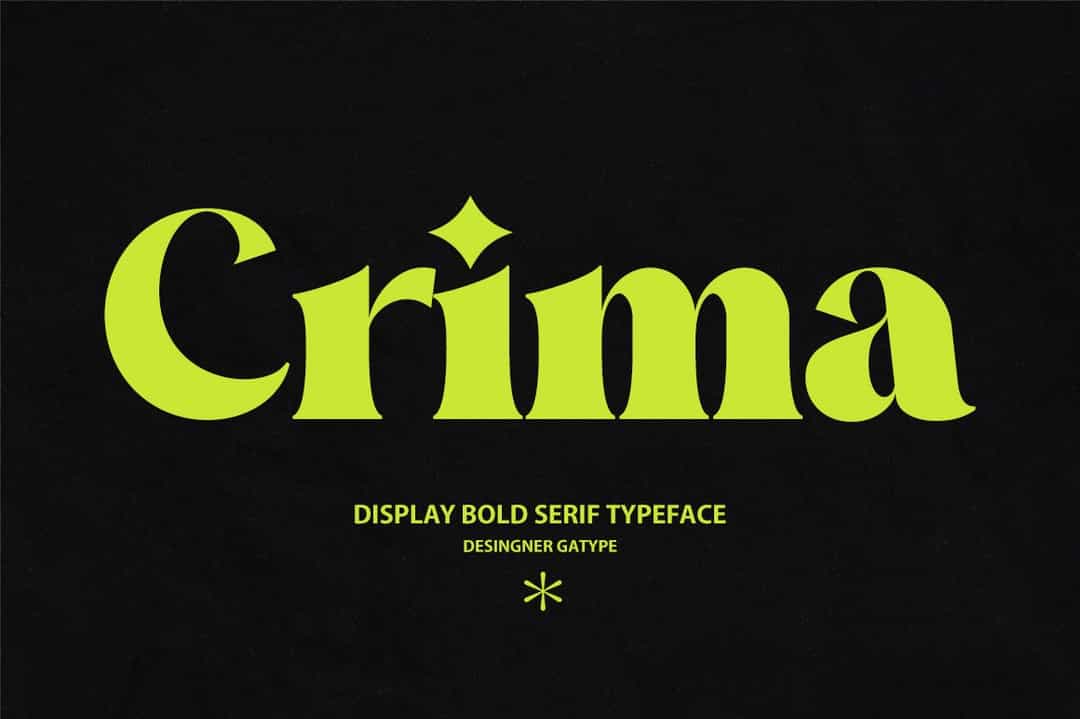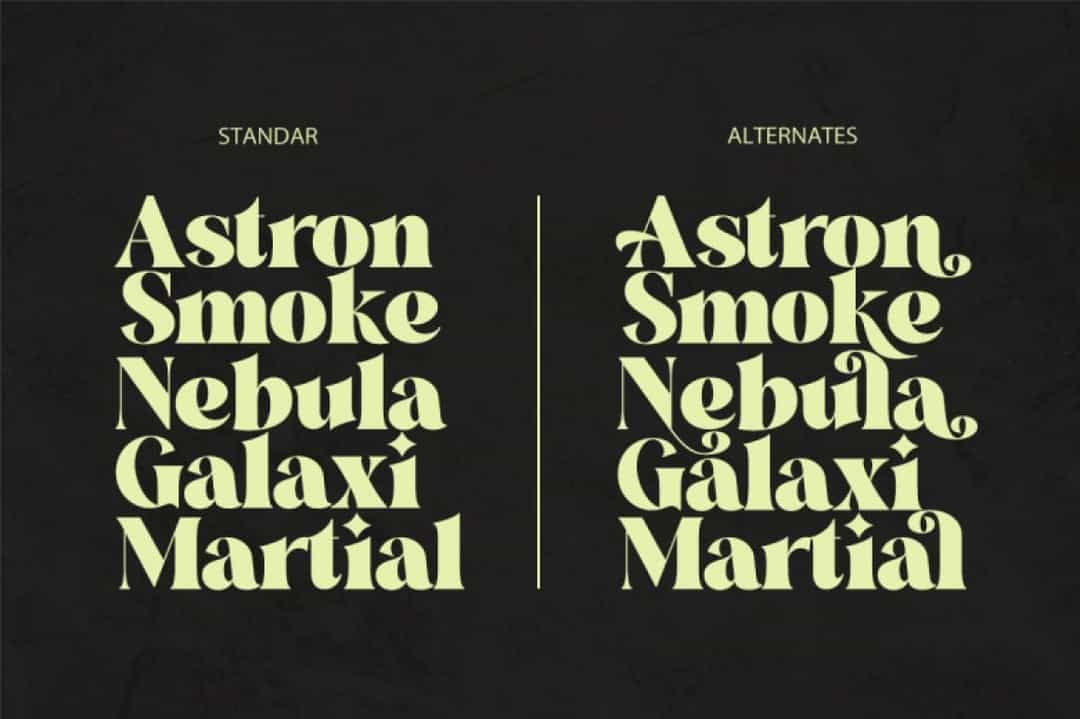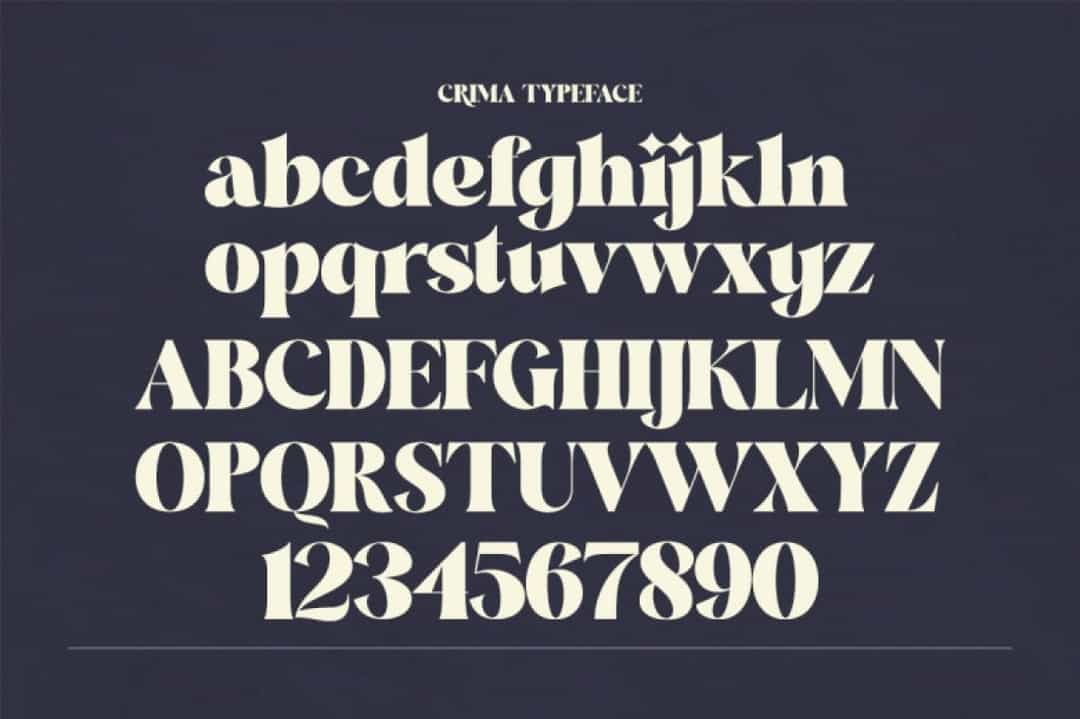
Crimais is an elegant display of a bold serif typeface featuring subtle particulars. This modern font can add contemporary and trendy charm to your brand, providing the right touch. Versatile enough for branding logos wedding clothing etc, the serif font has enough character to be used for branding logos headlines wedding clothing etc. As a classic font you could even try adding more intricate lowercase and uppercase characters!